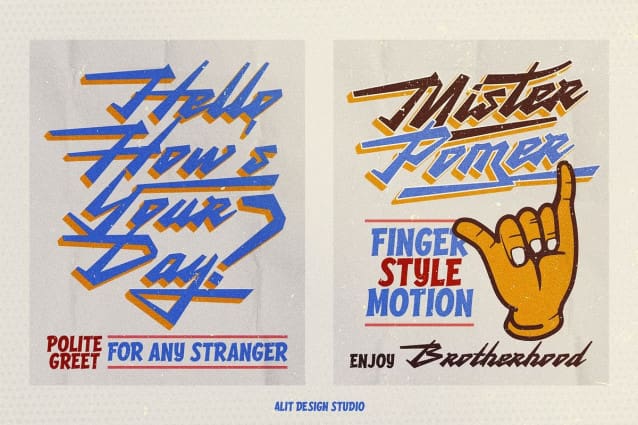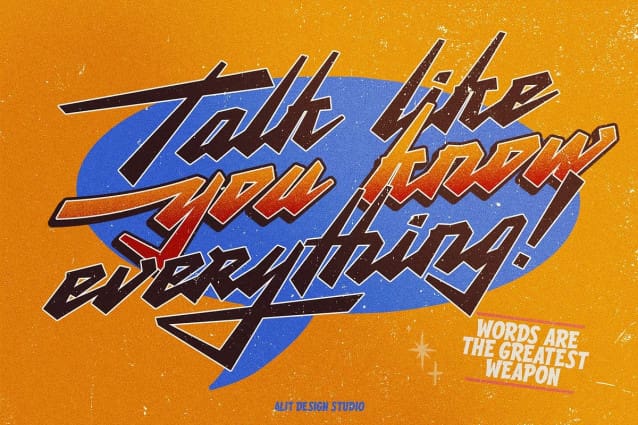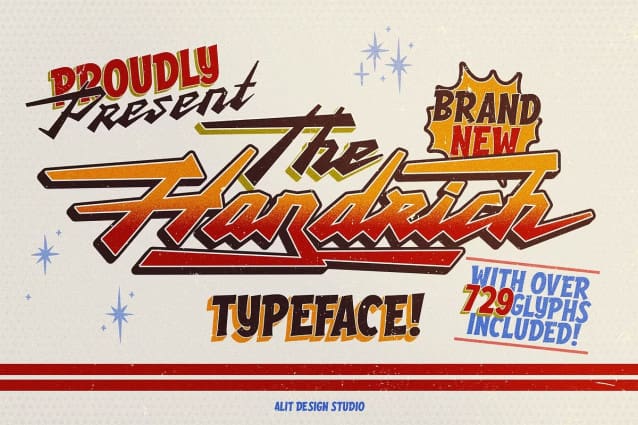
Handrich Font
Handrich Font, a dynamic and expressive script font that embodies the essence of speed, strength, and precision. It is designed for those who seek a typeface that exudes a bold and energetic character, perfect for making a statement.
Fast and Fierce Design: Handrich Font captures the essence of rapid movement and intensity, making your text come alive with a sense of urgency and vigor.
Firm and Rigid Structure: Each letter is meticulously crafted to maintain a strong and sturdy appearance, ensuring readability while preserving its fierce aesthetic.
Inspired by Sign Art Lettering: The font preview draws from the art of traditional sign painting, infusing your designs with a classic yet modern touch.
Versatile Applications:
Handrich Font is perfect for a wide range of applications, including:
Logos and Branding: Create impactful logos that stand out and convey a sense of speed and reliability.
Posters and Flyers: Add an energetic flair to your promotional materials, grabbing attention and leaving a lasting impression.
Product Packaging: Enhance your packaging designs with a font that suggests quality and precision.
Digital Graphics: Perfect for social media graphics, website headers, and more, where a bold statement is needed.
Character Set: Includes uppercase, lowercase, numerals, punctuation, and special characters.
Language Support: Extensive language support covering Western, Central, and Eastern European languages.